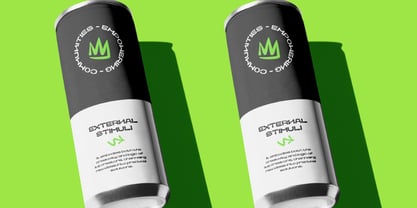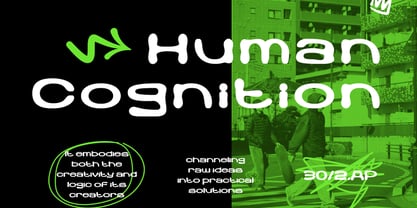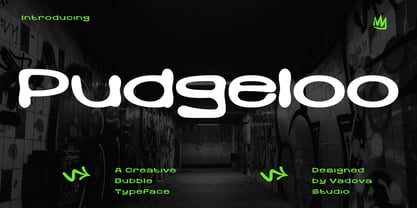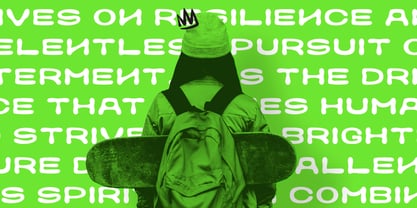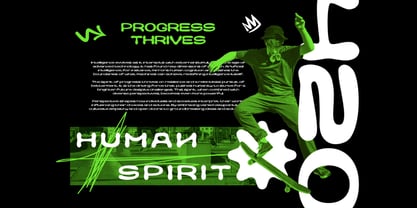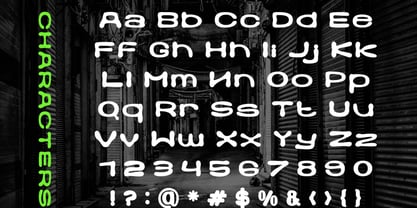
Pudgeloo
by Vadova Std
The Pudgeloo Font Family was designed by and published by Vadova Std. Pudgeloo contains 1 styles. More about this family
Elevate your designs with Pudgeloo Creative Bubble Font, a modern font perfect for adding elegance and style to your projects. Whether it’s for quotes, logotypes, magazine headers, or more, this versatile typeface ensures your text stands out beautifully.